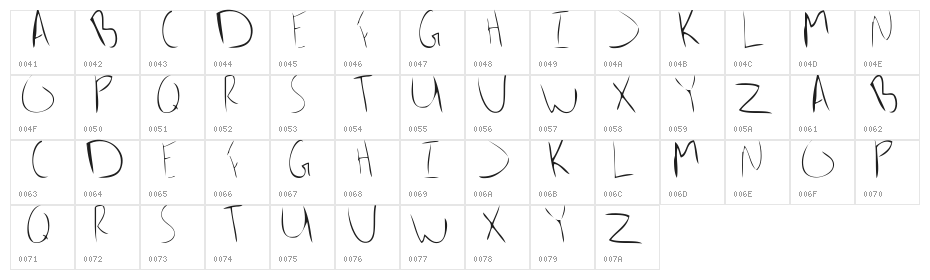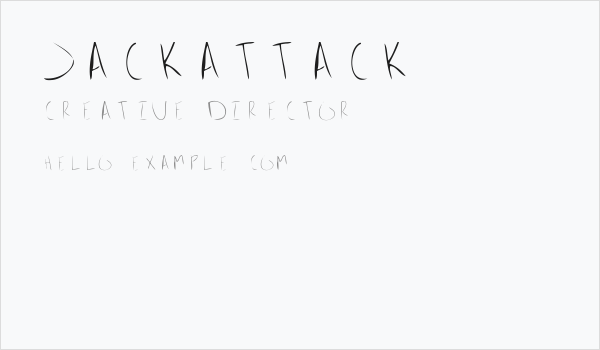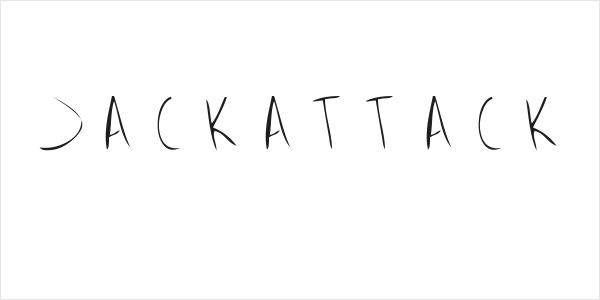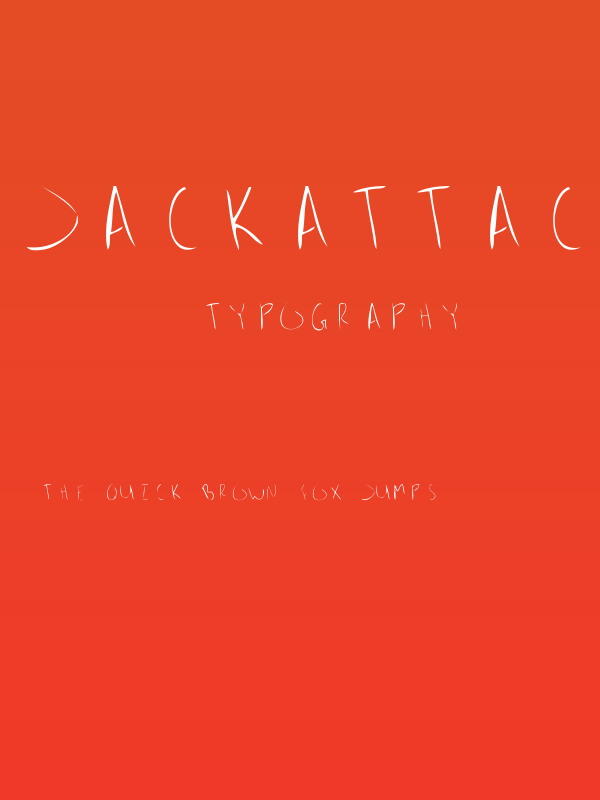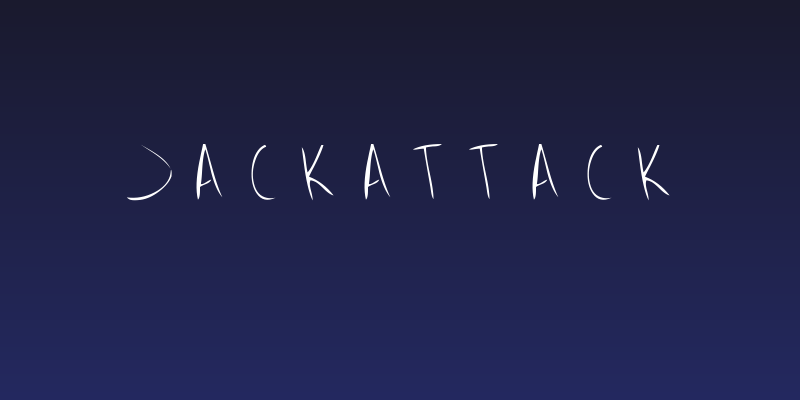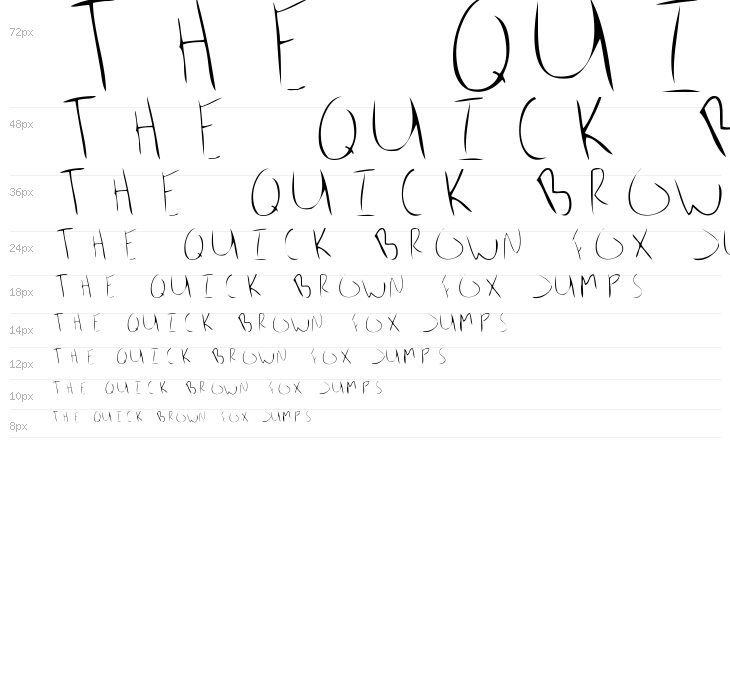
JackAttack Font
JackAttack Description
This font features a playful and whimsical design, characterized by its irregular and dynamic strokes. The letters exhibit a hand-drawn quality, with varying thicknesses that add a sense of movement and energy. The uppercase and lowercase letters maintain a consistent style, with some characters displaying unique and unexpected forms. The overall appearance is casual and artistic, making it suitable for creative and informal applications. The font's distinctive style is likely to capture attention and convey a sense of fun and creativity.
| Use Case | Logos, Headlines, Posters |
| Proposed Projects | Ideal for children's book covers, playful branding, creative posters, and artistic invitations. |